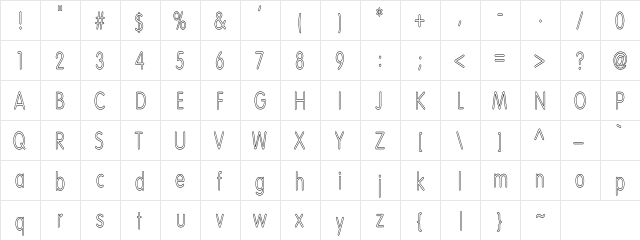
Vogue-NormalHC Regular
Design Context for Vogue-NormalHC Typeface
Vogue-NormalHC offers clean, dependable letterforms without strong stylistic allegiance, making it a practical choice for designers who need flexibility.
Pro Tip: Use Vogue-NormalHC in both headline and body roles to test its range before committing to a single application.